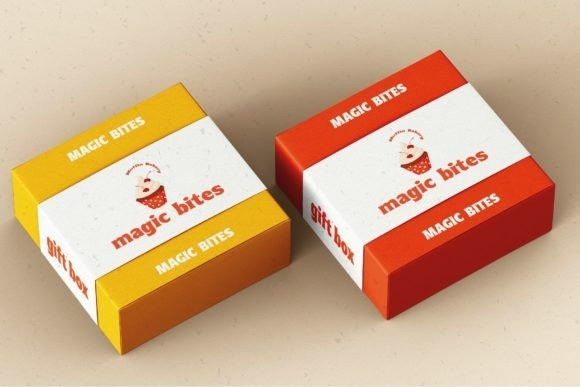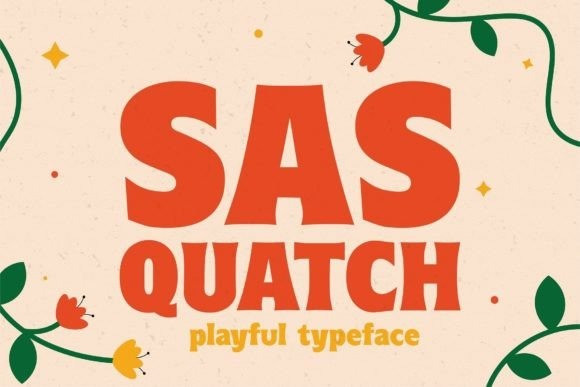
Sasquatch Font
Sasquatch Display Font is a playful display typeface inspired by the 1960s era. It’s particularly aimed at children-themed projects. Its inviting nature makes it ideal for books, magazines, stationery, flyers, schools, labels, badges, packaging, advertising, and much more. Get creative!